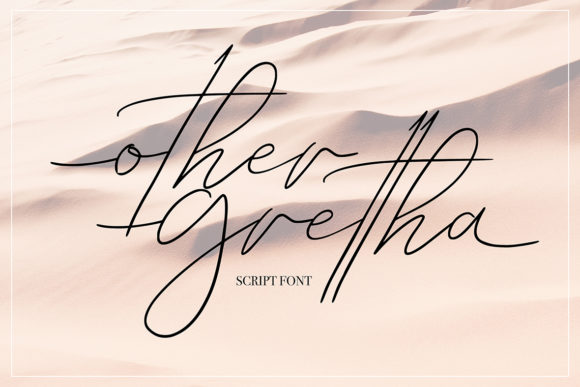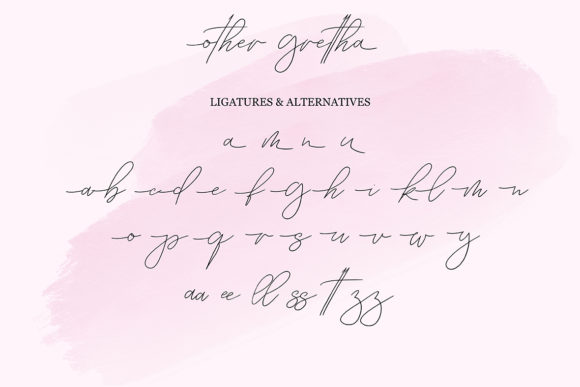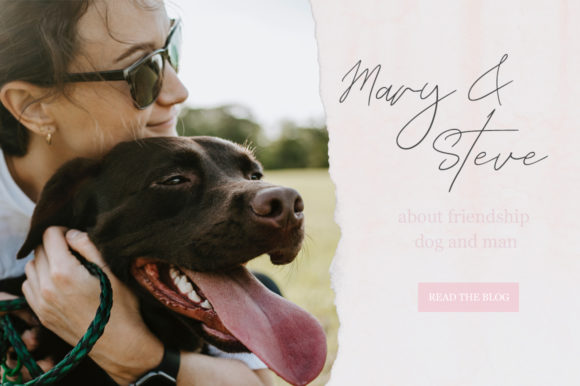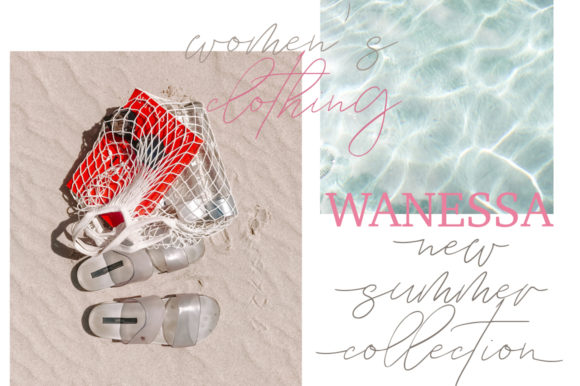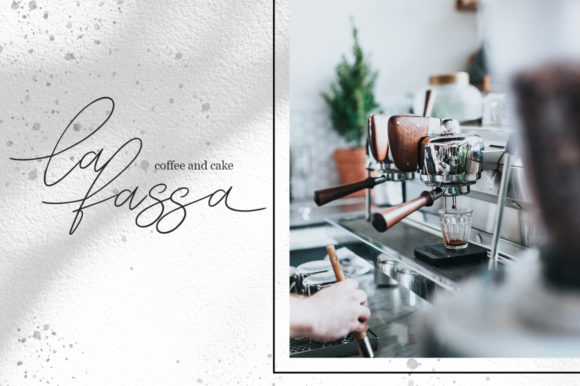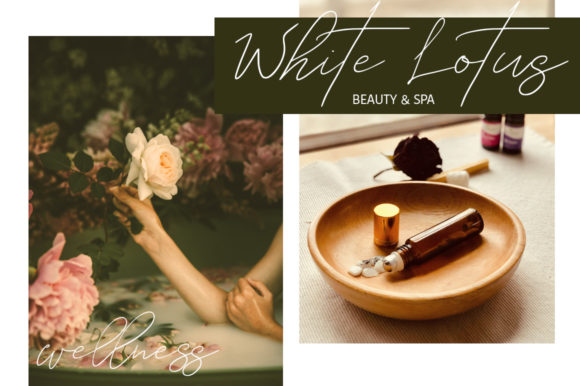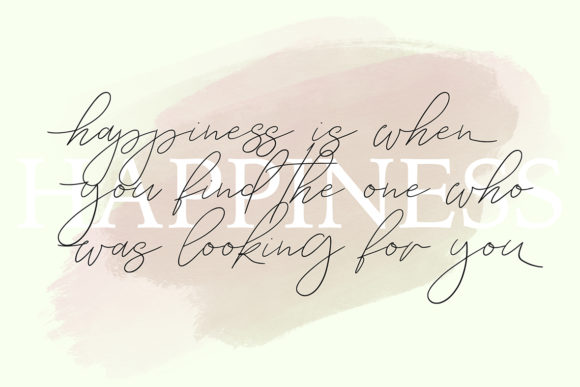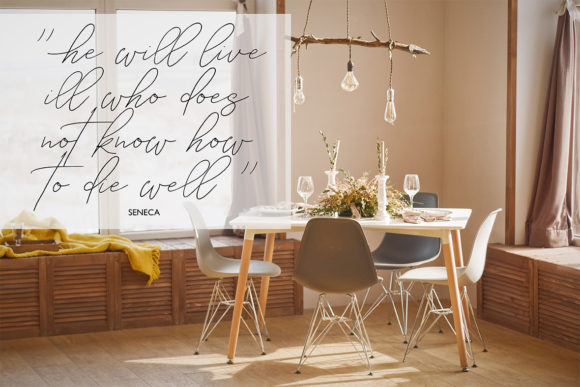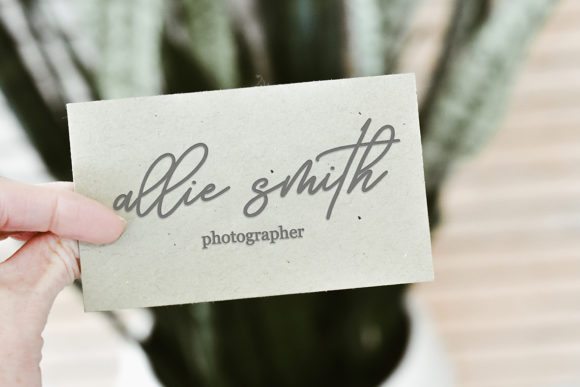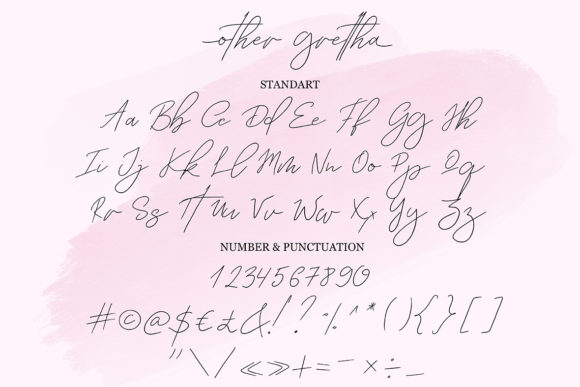
HomeScript FontsOther Grettha Font Script Fonts Other Grettha Font FacebookXPinterestWhatsApp Other Grettha Font Poster 2 Other Grettha Font Poster 3 Other Grettha Font Poster 4 Other Grettha Font Poster 5 Other Grettha Font Poster 6 Other Grettha Font Poster 7 Other Grettha Font Poster 8 Other Grettha Font Poster 9 Other Grettha Font Poster 10 About Other Grettha Font Other Grettha is a casual and authentic script that will turn any design idea into a true standout! DOWNLOAD ON CREATIVE FABRICAThis font is sold and delivered by Creative Fabrica. Font Canyon may earn a commission if you buy through this link. People also explored Rich Font Daily Diary Font Mattador Font Juvenile Font Black Valentine Font Shaquila Font Hope Font Cute Mermaid Font Buttercake Font 317 0 TagsOther Grettha Font Previous articleThe Falcon FontNext articleImpressia Font LEAVE A REPLY Cancel reply Comment: Please enter your comment! Name:* Please enter your name here Email:* You have entered an incorrect email address! Please enter your email address here Website: Save my name, email, and website in this browser for the next time I comment. Personal Use Free Arnprior Personal Use Free Read more about this font Rare Knuckle Personal Use Free Read more about this font Ciggs Personal Use Free Read more about this font The Most Beautiful Gift Personal Use Free Read more about this font BLOG Top 10 Handwritten Fonts That Elevate Your Designs Top 10 Handwritten Fonts That Will Elevate Your Designs Handwritten fonts bring a warm, personal touch to every creative project. Whether you're designing logos, invitations,... Elegant Wedding Invitation Fonts – Handwritten & Script Fonts Using Fonts in Digital Marketing: Tips to Strengthen Your Brand Identity Best Fonts for T-Shirt Design – Top 2025 Picks